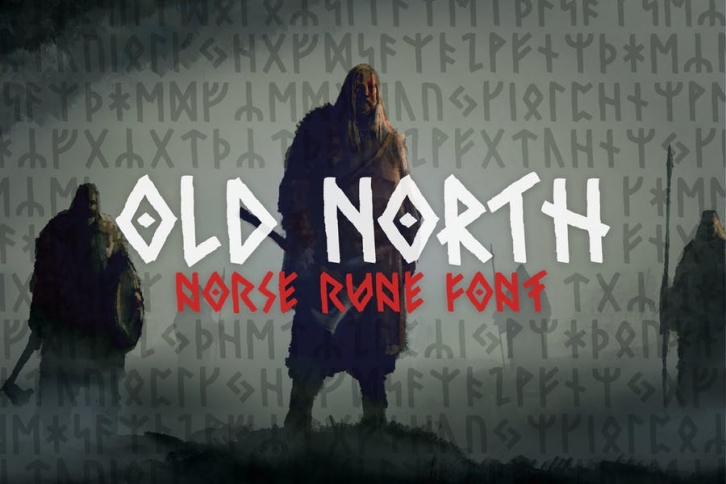
Old North is a norse rune inspired font. Rune style translated to latin characters. If you want to have a norse and viking look look no further! Wide latin character support with two different styles of runes placed with uppercase and lowercase characters. Included is also a stylistic alternative on A-Z based on actual norse runes.